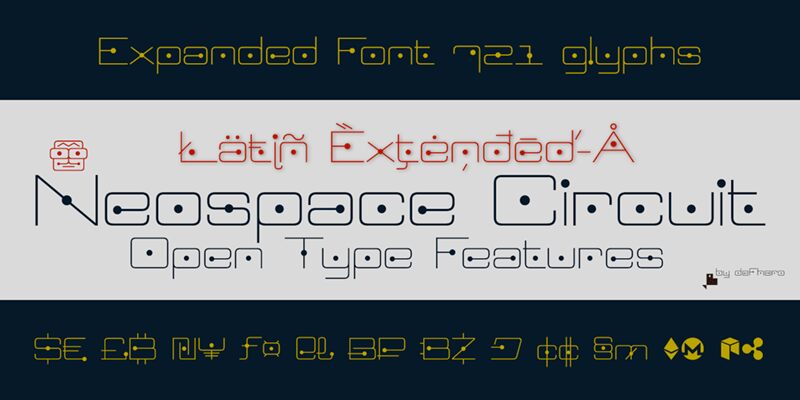
Neospace Circuit Expanded emerges from the creative mind of Fernando Haro, offering a glimpse into the future with its sleek, avant-garde design. Crafted to stand out, this member of the Neospace Circuit family boasts an extra-expanded width and light weight that exude a spacious yet precise aesthetic. Its futuristic style is unmistakably tailored for display purposes, where its clean lines and modern curves can effectively command attention.
Neospace: The fonts of the Future Immerse yourself in the future with Neospace, a cutting-edge typeface designed for lovers of technology and science fiction. With its elegant and minimalist geometric style, Neospace redefines typographic aesthetics with a perfect fusion between modern and futuristic.